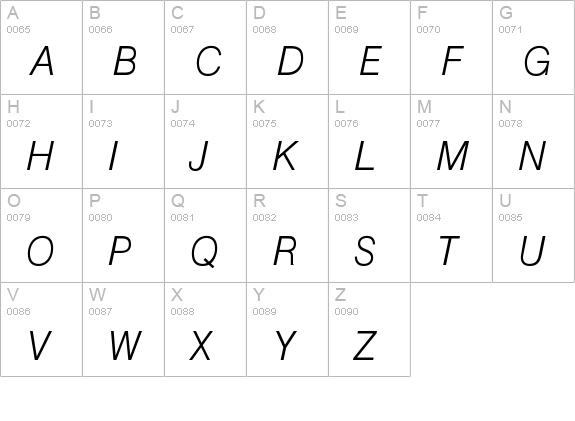
AT Triumvirate Light Italic is a refined, elegant, italic variant in the AT typeface family \xE2\x80\x94 well suited to elegant body text, refined sub-headings, and luxury branding.
The AT Triumvirate Light Italic font exudes elegance and sophistication with its delicate and flowing italic style. Its slender and graceful letterforms make it perfect for adding a touch of refinement to any design project. This font is ideal for creating stylish invitations, sophisticated branding, or elegant editorial layouts. What's even better is that the AT Triumvirate Light Italic font is available for free download at FontsMarket.com. You can easily access this stunning typeface and elevate your designs with its timeless appeal. Embrace the beauty and versatility of this font as you bring a touch of class to your creative projects.